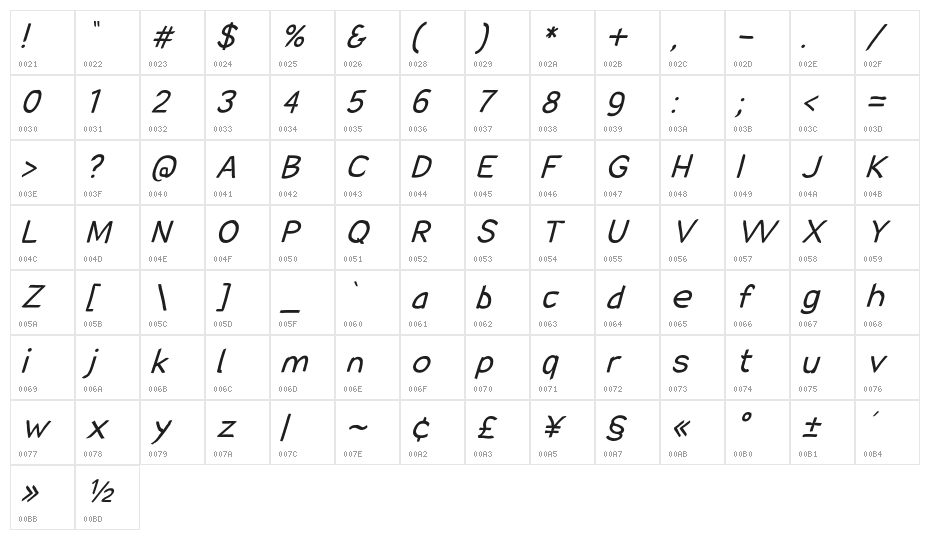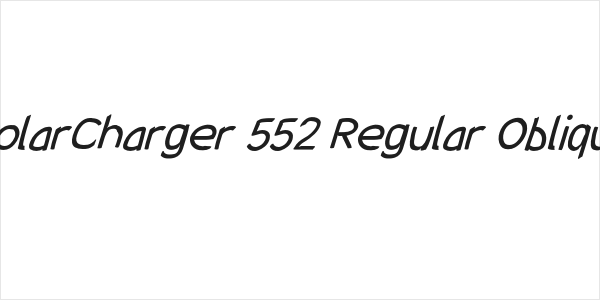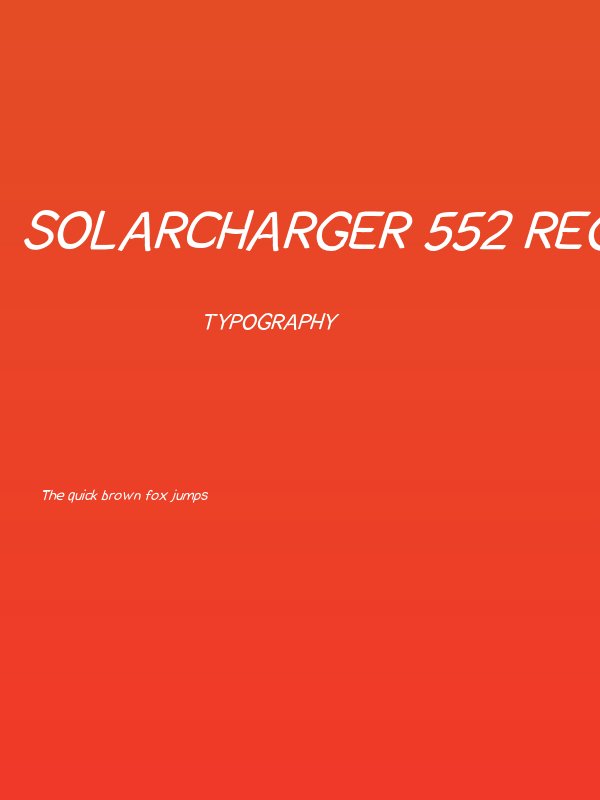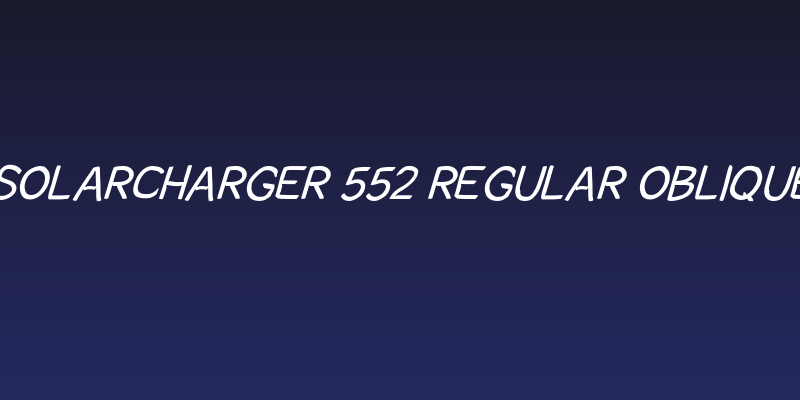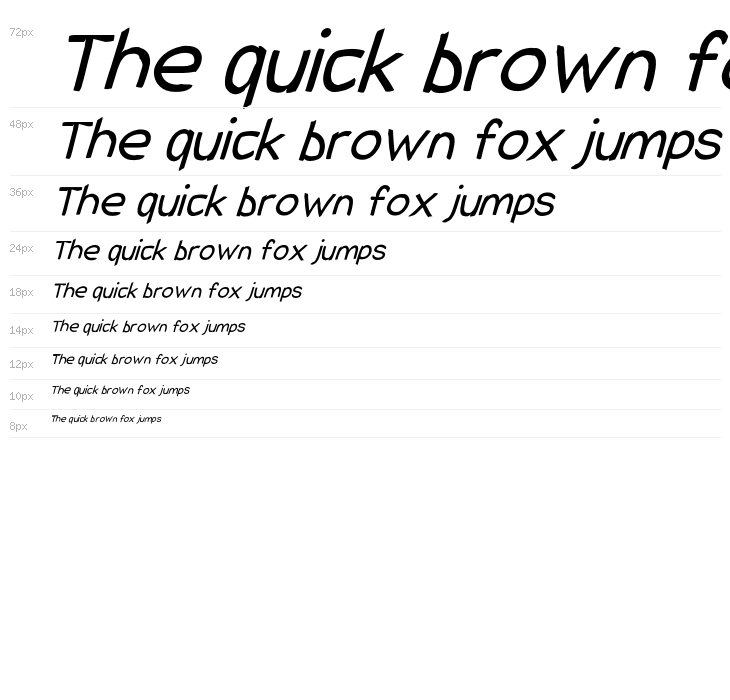
SolarCharger 552 Regular Oblique Font
SolarCharger 552 Regular Oblique Description
This font features a sleek, modern design with an oblique style that adds a dynamic and forward-leaning appearance. The characters are slightly slanted, giving the text a sense of motion and energy. The strokes are consistent in thickness, providing a clean and uniform look across all characters. The uppercase and lowercase letters maintain a harmonious balance, with rounded edges that soften the overall aesthetic. The numerals are clear and legible, making them suitable for a variety of applications. Special characters are well-defined, ensuring versatility in usage. This font's design is both contemporary and approachable, making it ideal for projects that require a modern yet friendly touch.
| Use Case | Headlines, Logos, Digital Media |
| Proposed Projects | Ideal for branding, advertising, and digital media projects that require a modern and energetic look. |